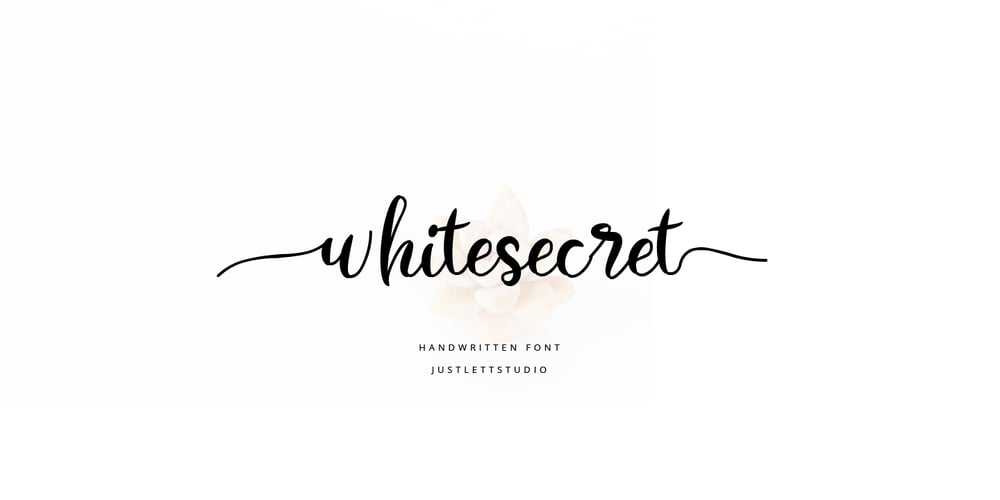
White Secret Font Family was designed by Amar Lettering and published by Just Lett. White Secret contains 1 styles and family package options. Whitesecret is modern script with swashes, lowercase and Uppercase alternate. So this font is beautiful on invitation cards, wedding cards, quotes, greeting cards, business cards, and more design concept.Features: Uppercase lowercase puncuation and numeral 2 alternates lowercase and Uppercase And Multilingual language